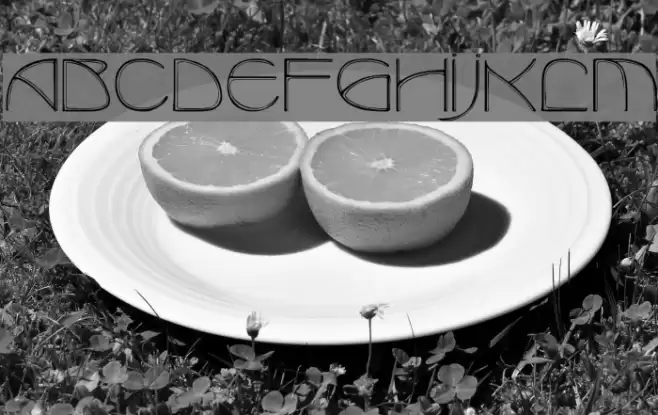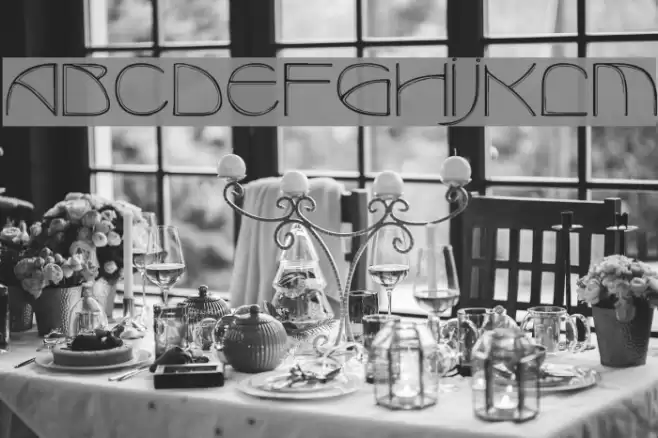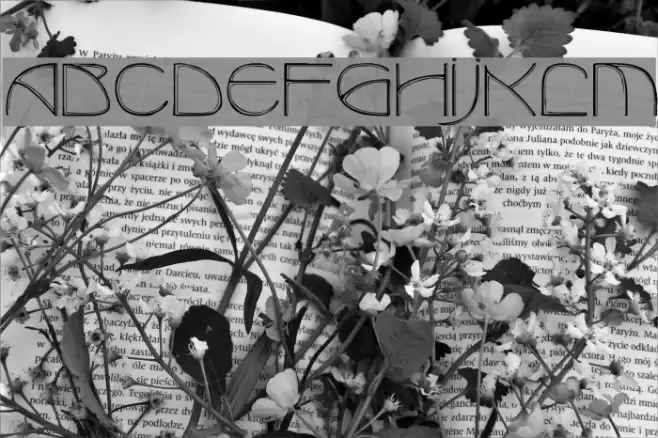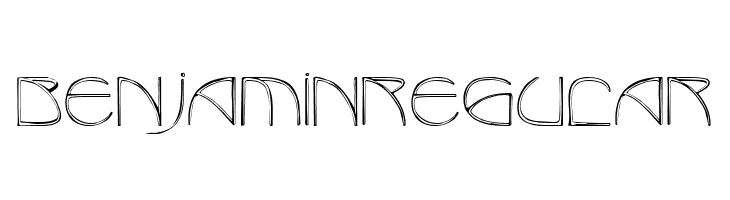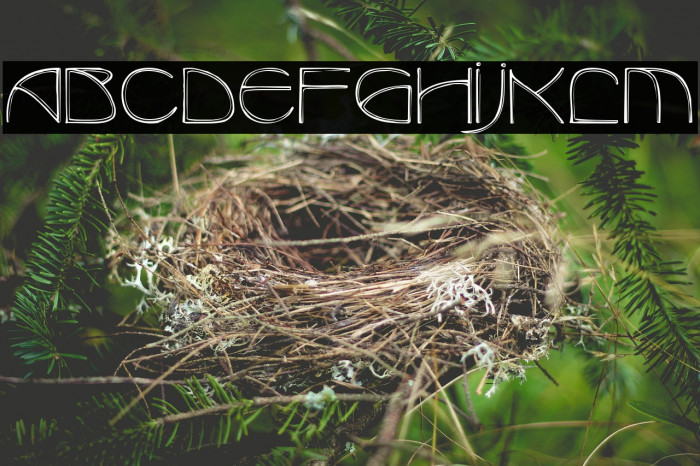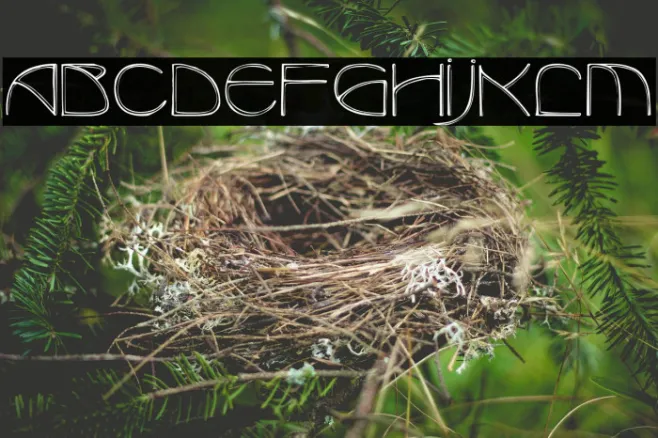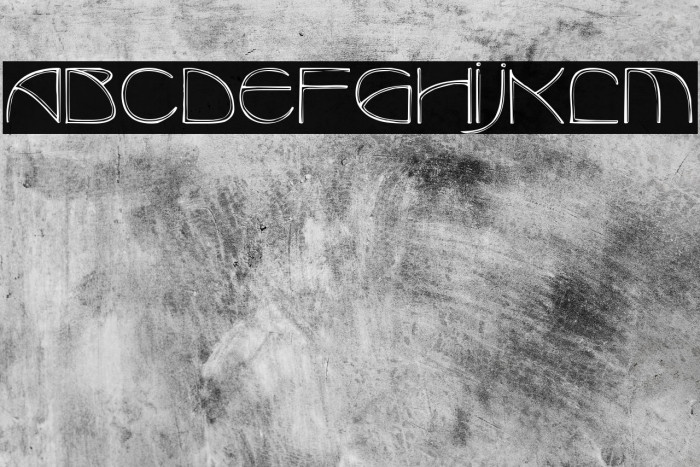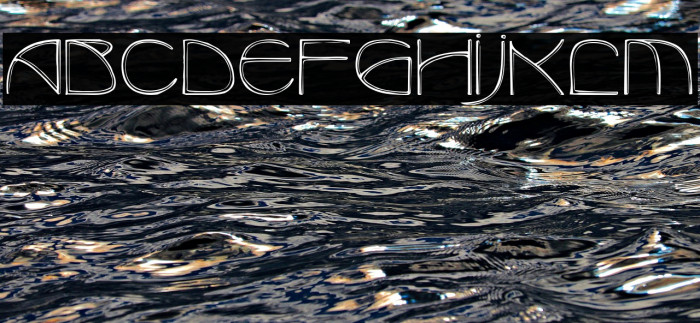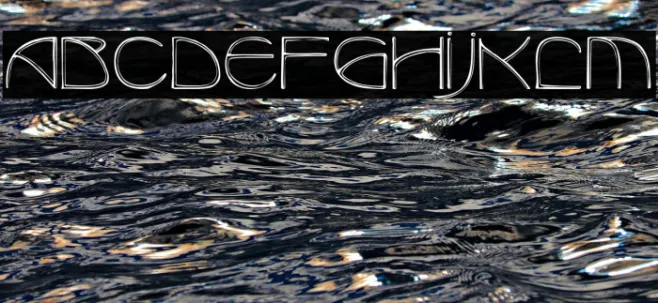
Benjamin Regular Font
Benjamin Regular Description
This font features a unique and artistic design with elongated and curved strokes, creating a sense of elegance and fluidity. The uppercase letters exhibit a distinct style with extended lines and sharp angles, giving them a modern and sophisticated appearance. The absence of lowercase letters and numerals suggests a focus on decorative and display purposes. The overall design is sleek and minimalistic, with a high level of contrast between the thin and thick strokes, enhancing its visual appeal. The font's artistic flair makes it suitable for creative projects that require a touch of elegance and modernity.
An artistic and elegant font with elongated strokes and high contrast, ideal for decorative use from Modern fonts.
- Proposed Projects: Suitable for use in logos, branding, invitations, and artistic posters where a modern and sophisticated look is desired.
- Use Case: Logos, Headlines, Decorative elements